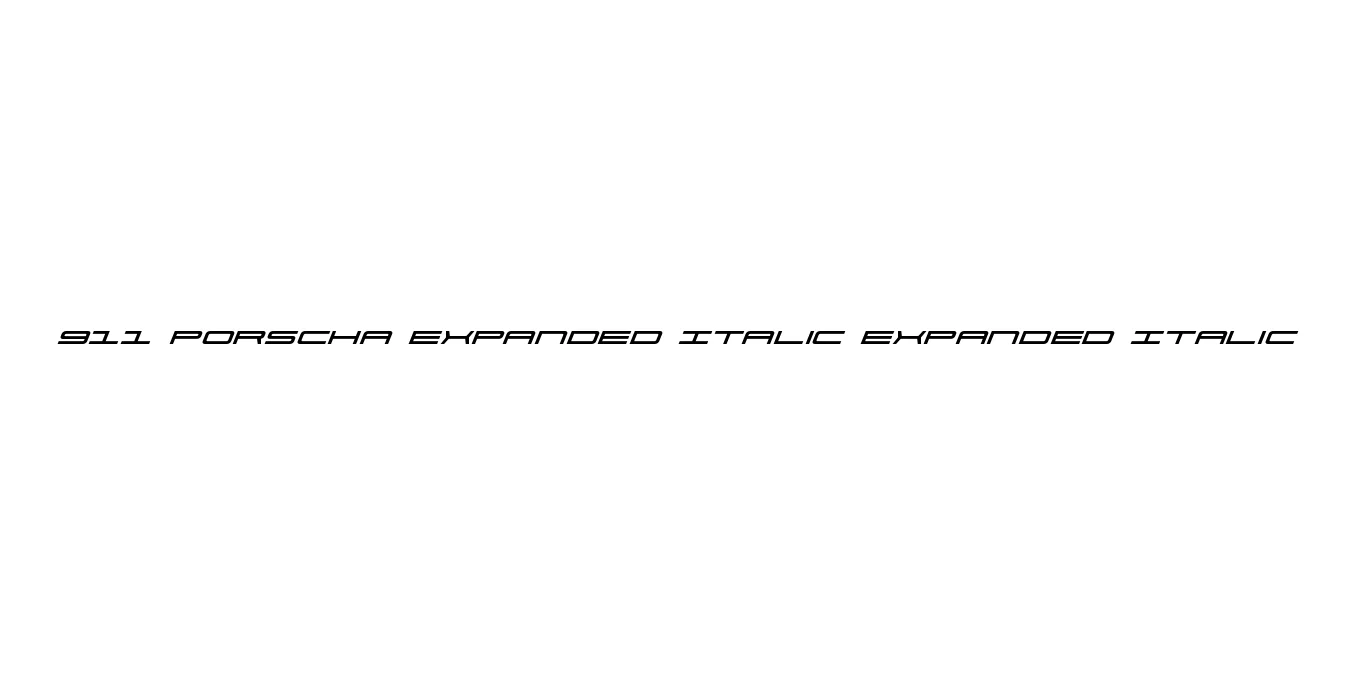
911 Porscha Expanded Italic Expanded Italic
Designed by Iconian Fonts (Dan Zadorozny)
| Category | Techno / Sans-Serif |
| Designer | Iconian Fonts (Dan Zadorozny) |
| Similar Fonts | Eurostile, Microgramma, Grand Prix, Venus Rising |
911 Porscha Expanded Italic is a high-octane display typeface heavily inspired by the iconic typography used in high-performance automotive branding. Designed by Iconian Fonts, this typeface captures the essence of speed, precision, and luxury through its distinctively wide letterforms and aggressive italic slant. The font is part of a larger family that emphasizes horizontal expansion, making it a powerful choice for visual communication that requires a sense of forward momentum and aerodynamic sleekness.
This typeface is particularly effective in modern branding and digital media, where its bold, geometric construction provides excellent visibility and impact. It is frequently utilized in the gaming industry, motorsport graphics, and technological designs to convey an atmosphere of cutting-edge engineering. While it draws inspiration from classic sports car aesthetics, its clean lines and structured forms ensure it remains a versatile tool for contemporary designers seeking a professional yet high-energy visual presence.
911 Porscha Expanded Italic Best Uses
Ideal for vehicle wraps, car club logos, and motorsport marketing materials.
Perfect for title screens, HUD elements, and racing game UI components.
Great for high-impact event flyers and promotional sports posters.
Highly effective for apparel and accessories related to car culture and engineering.